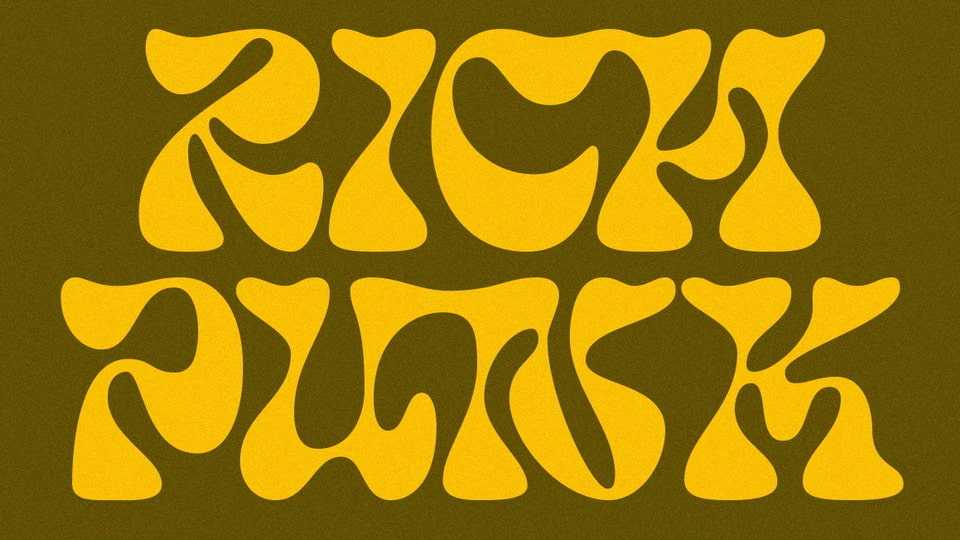
Download Rich Punk font, a unique display typeface inspired by groovy and psychedelic typography. With its bold vibe the font is suitable for poster design, merchandise, logos and many others.
Designer: Prioritype Co